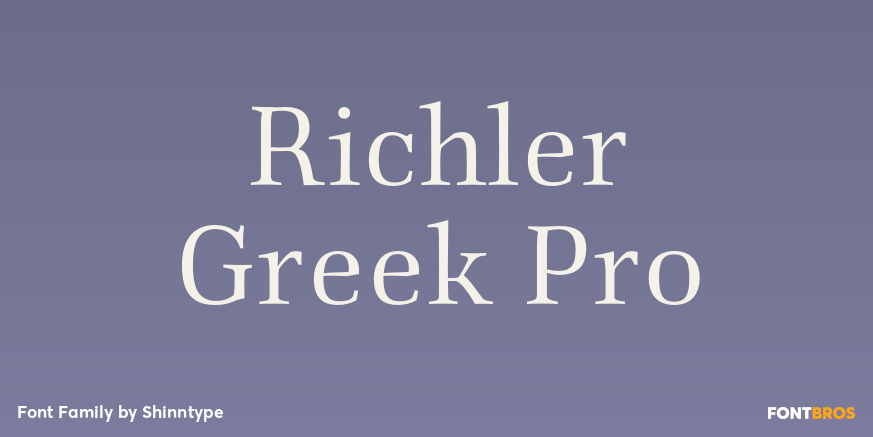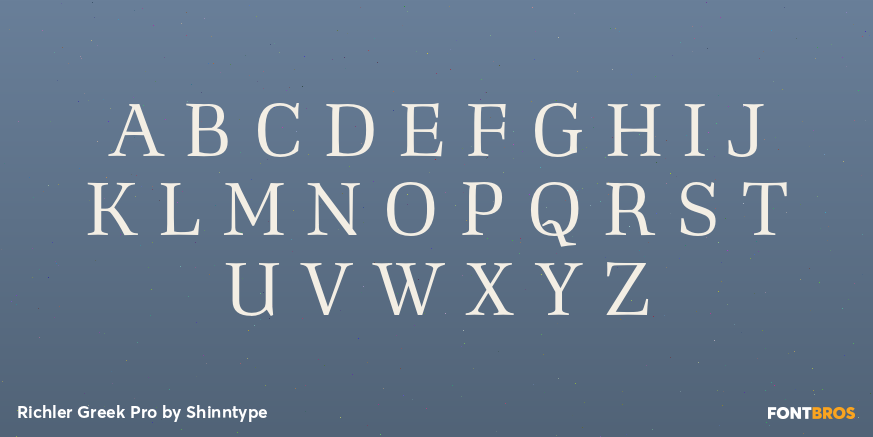
Richler Greek Pro
Font Family by Shinntype
Richler Greek Pro is a five-style serif family from Shinntype that brings a classical, ornamental feel to the page. Its combination of serif structure and special-effect styling gives it a distinctly decorative voice, with enough range across Regular, Italic, Bold, Bold Italic, and Highlight to create contrast while keeping a consistent look.
This is a strong choice for display work that benefits from a literary, historic, or theatrical tone. Use it for packaging, posters, branding, book covers, signage, or editorial headlines when you want typography that feels expressive and character-rich rather than plain.
The included Highlight style adds an extra layer of visual interest, making the family especially useful for logos or title treatments that need a more stylized finish. If you are looking for a serif family with a decorative edge and multiple weights for flexible composition, this set offers a focused, polished toolkit.